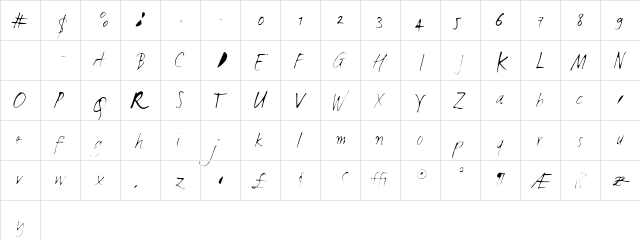
LucasHandFeetUltraLight Medium
Design Context for LucasHandFeetUltraLight Typeface
LucasHandFeetUltraLight flows with the natural rhythm of handwritten lettering, making it ideal for designs that call for warmth and personal expression. The delicate stroke weight brings airiness and refinement to layouts.
Font Pairing: Combine LucasHandFeetUltraLight with a simple geometric sans for maximum contrast — the tension between flowing curves and clean structure is a classic typographic pairing.
Pro Tip: Use LucasHandFeetUltraLight for short runs of text — names, titles, or taglines. Extended body copy in script faces tires the eye quickly.